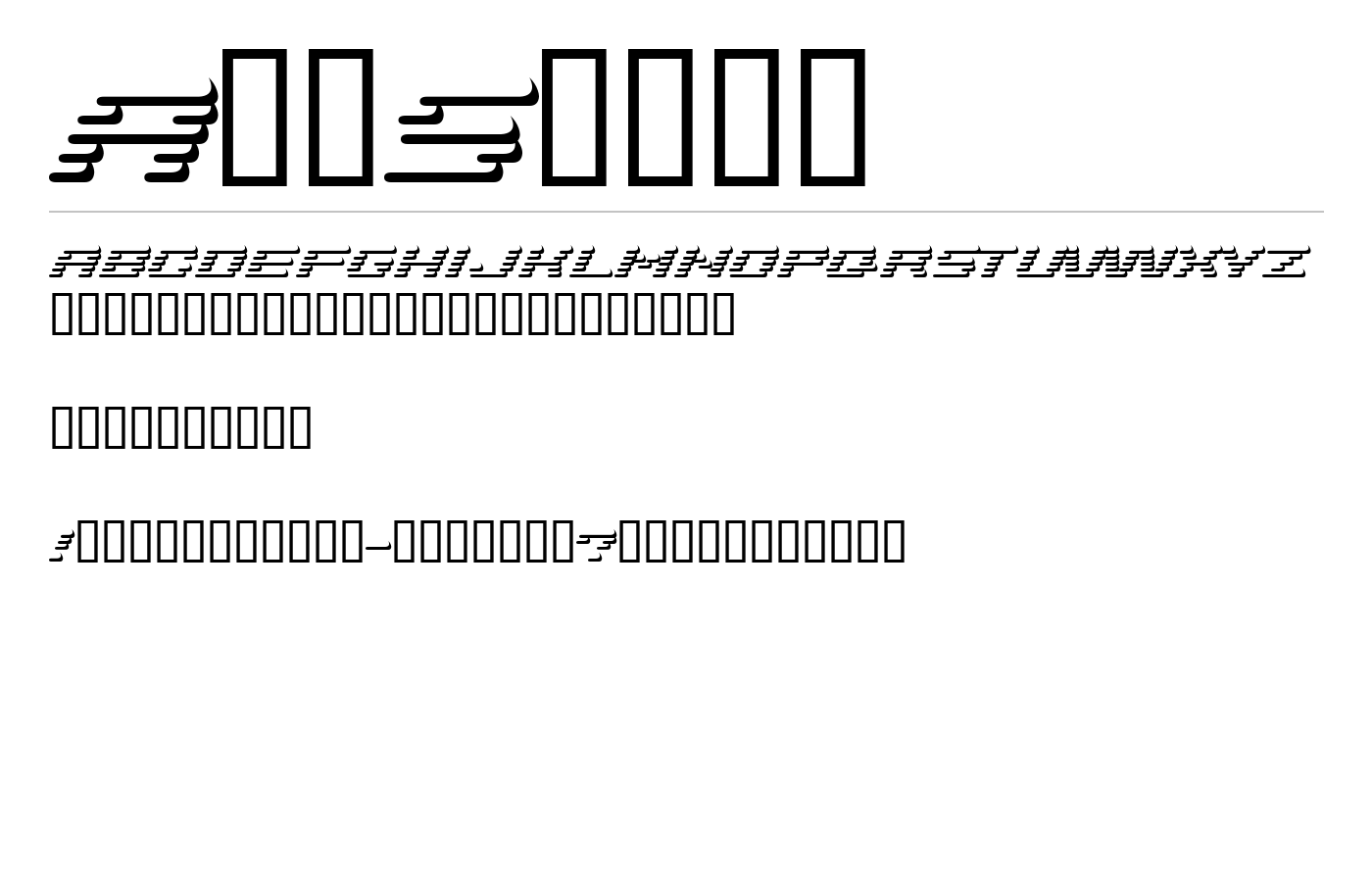
AddShade is a unique sans serif typeface with a strong futuristic vibe, featuring condensed letterforms and an eye-catching layered shading effect that adds depth and movement. Its geometric, sharp-edged design makes it perfect for bold headlines, tech branding, and modern editorial projects that want to stand out with a dynamic, high-energy personality.
AddShade Font
About AddShade Font